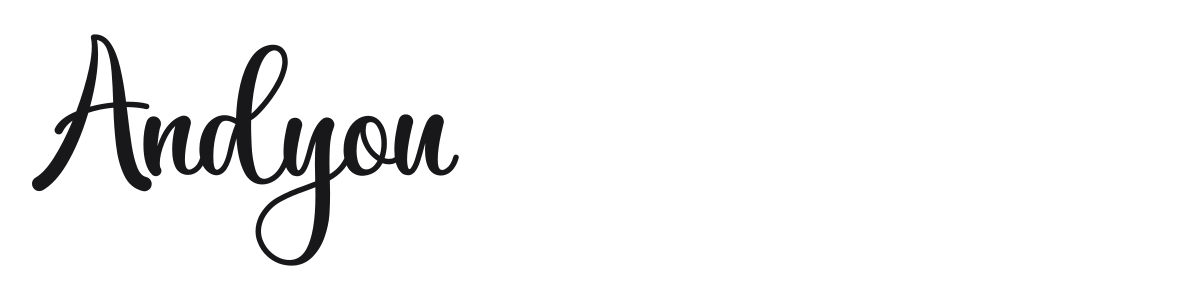
Andyou
Andyou is a bold casual script from Sakha Design with flowing connected strokes and a lively baseline bounce. The generous weight and looping ascenders give it the feel of confident hand-lettering rather than stiff calligraphy. It works well wherever a warm, personal touch is needed at large sizes.